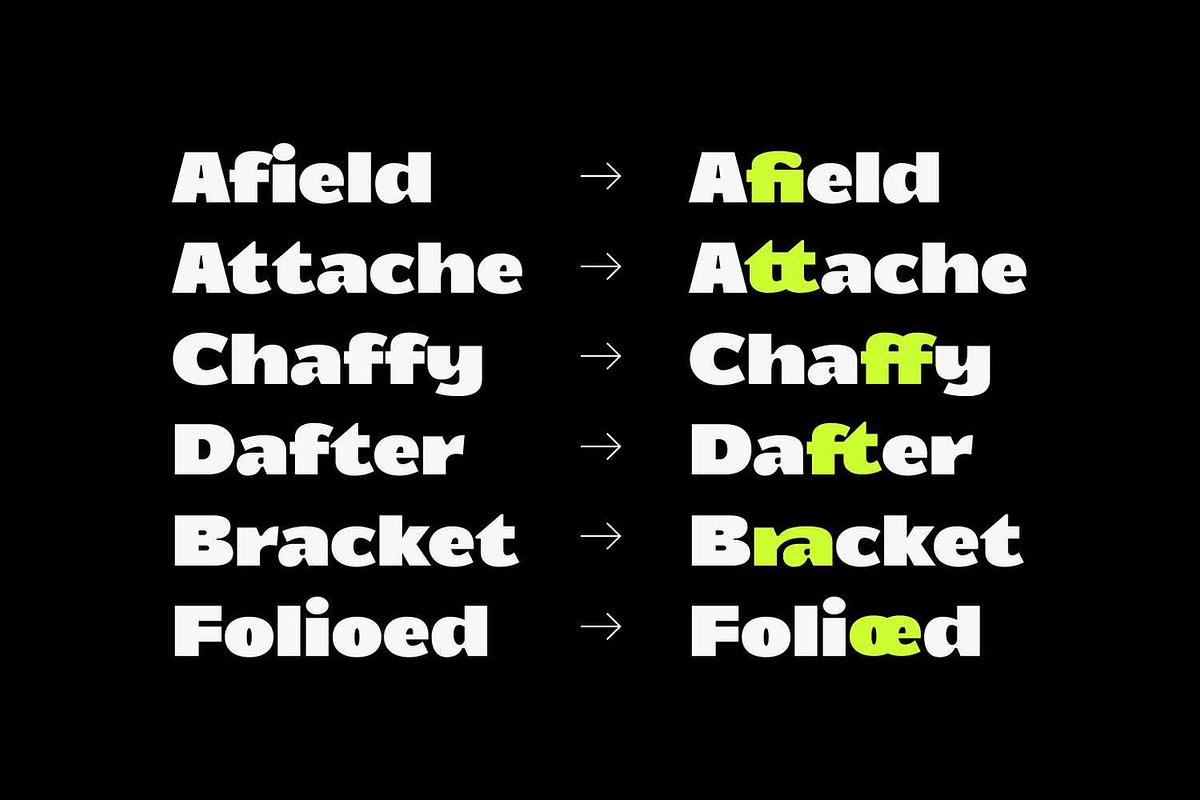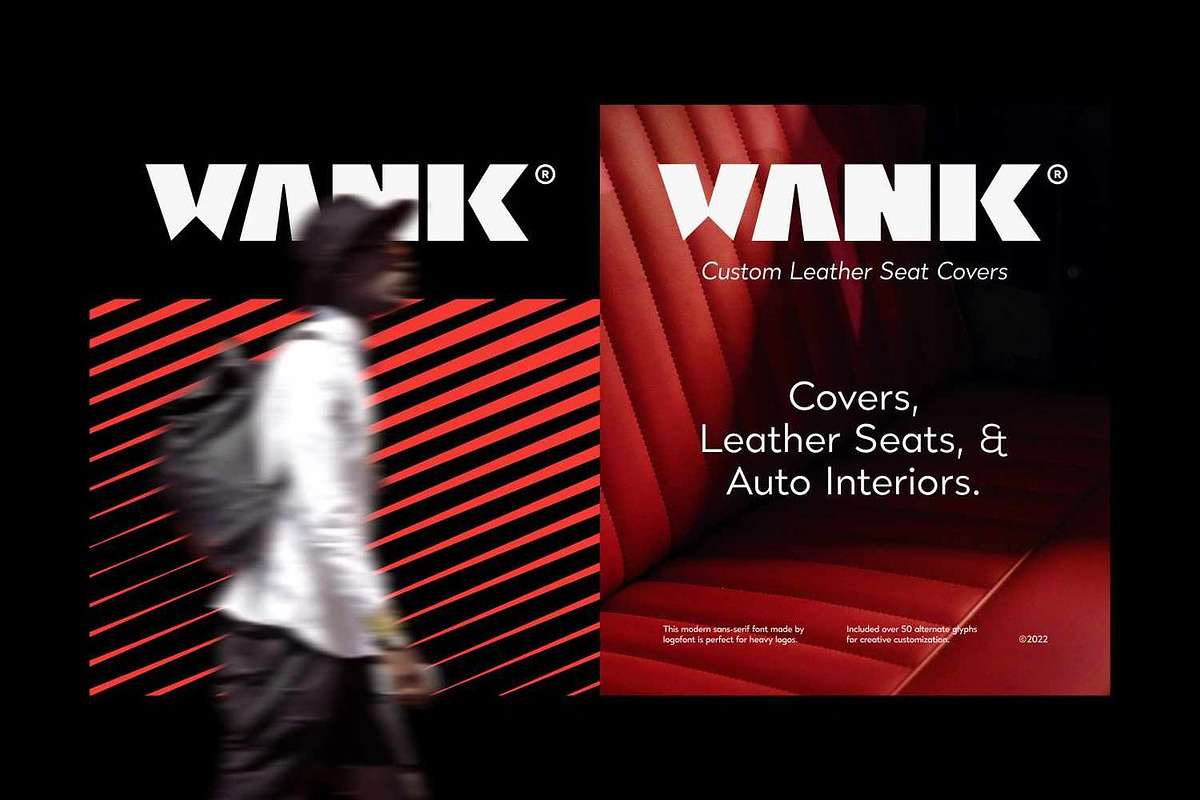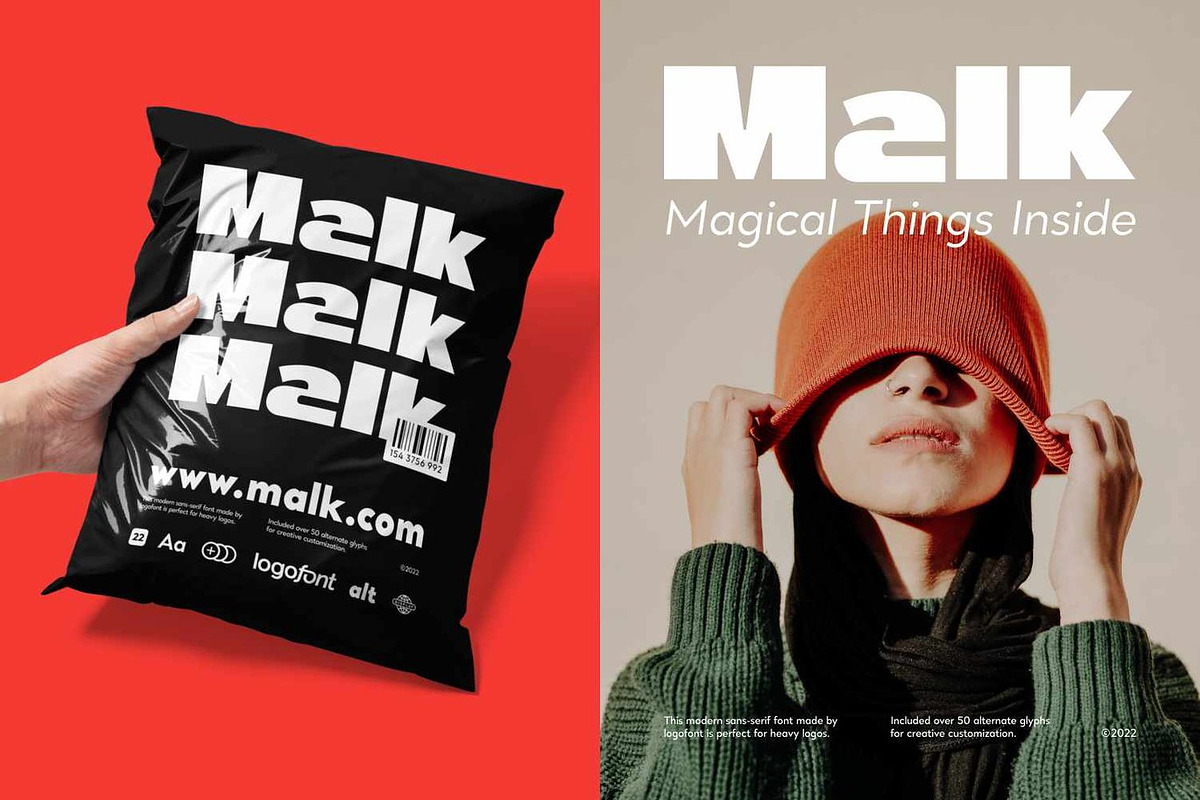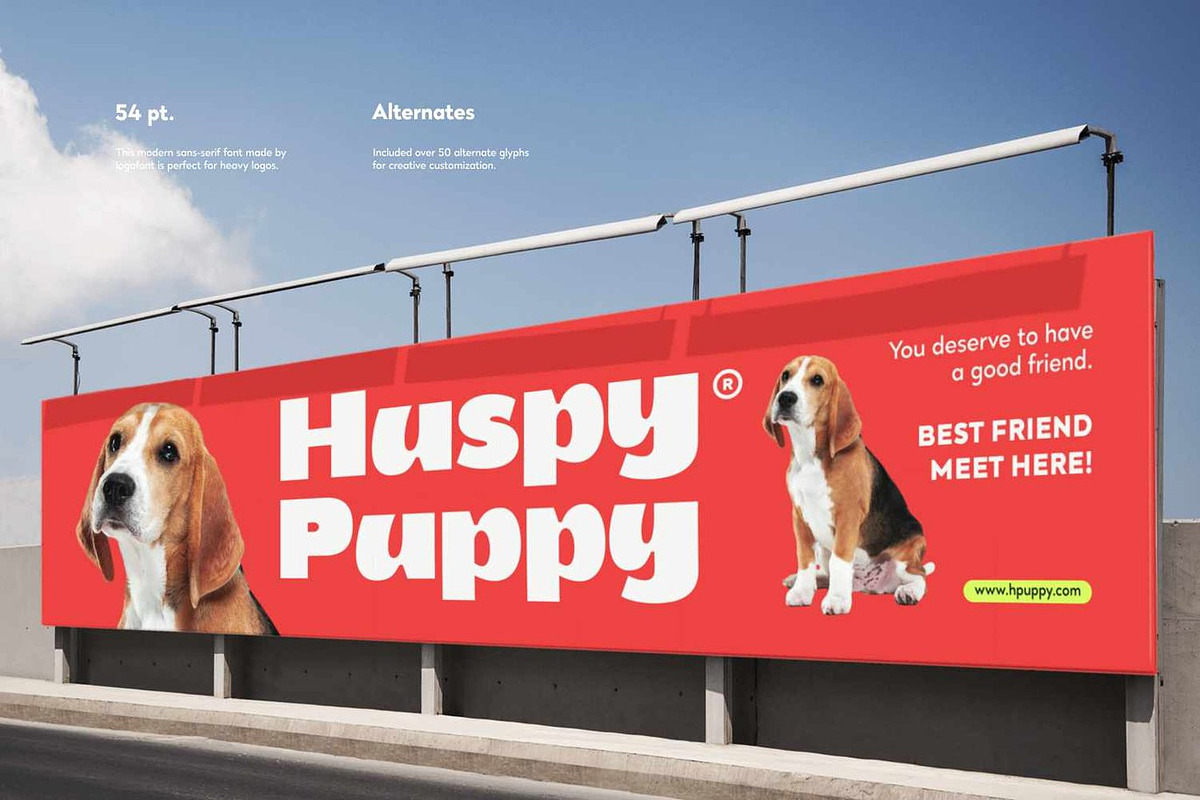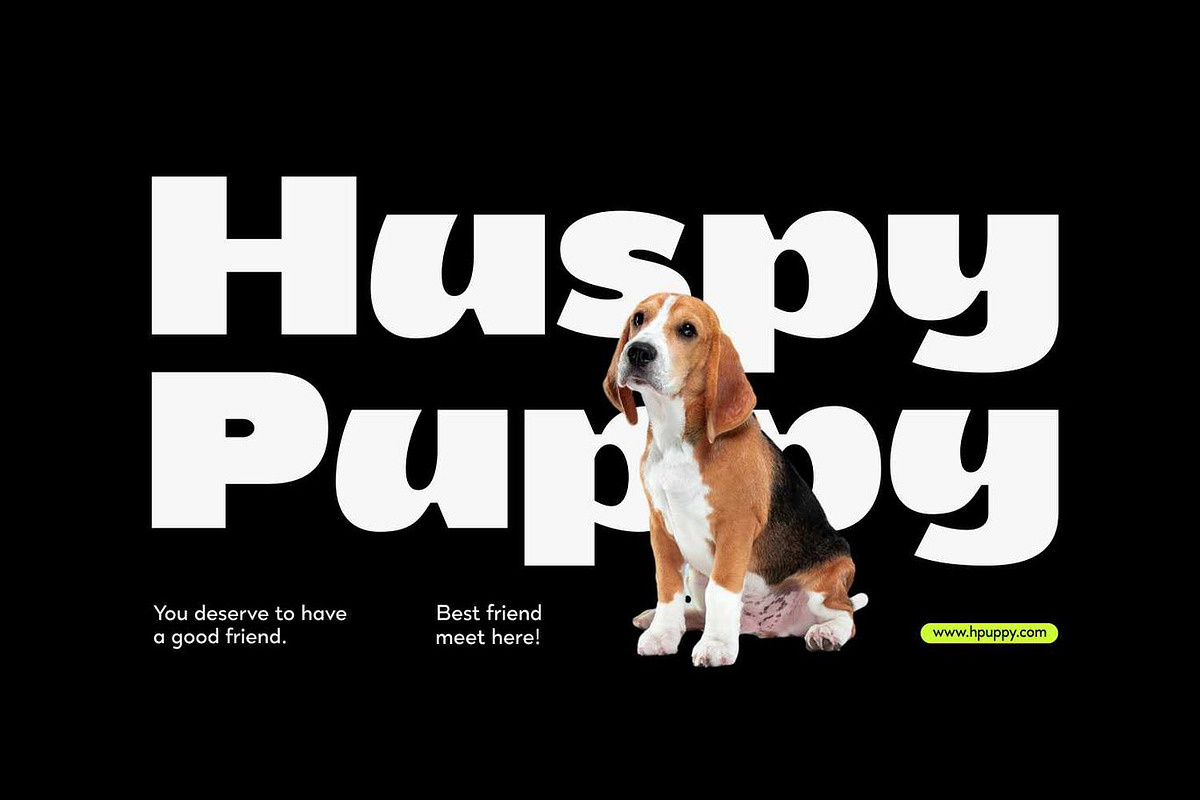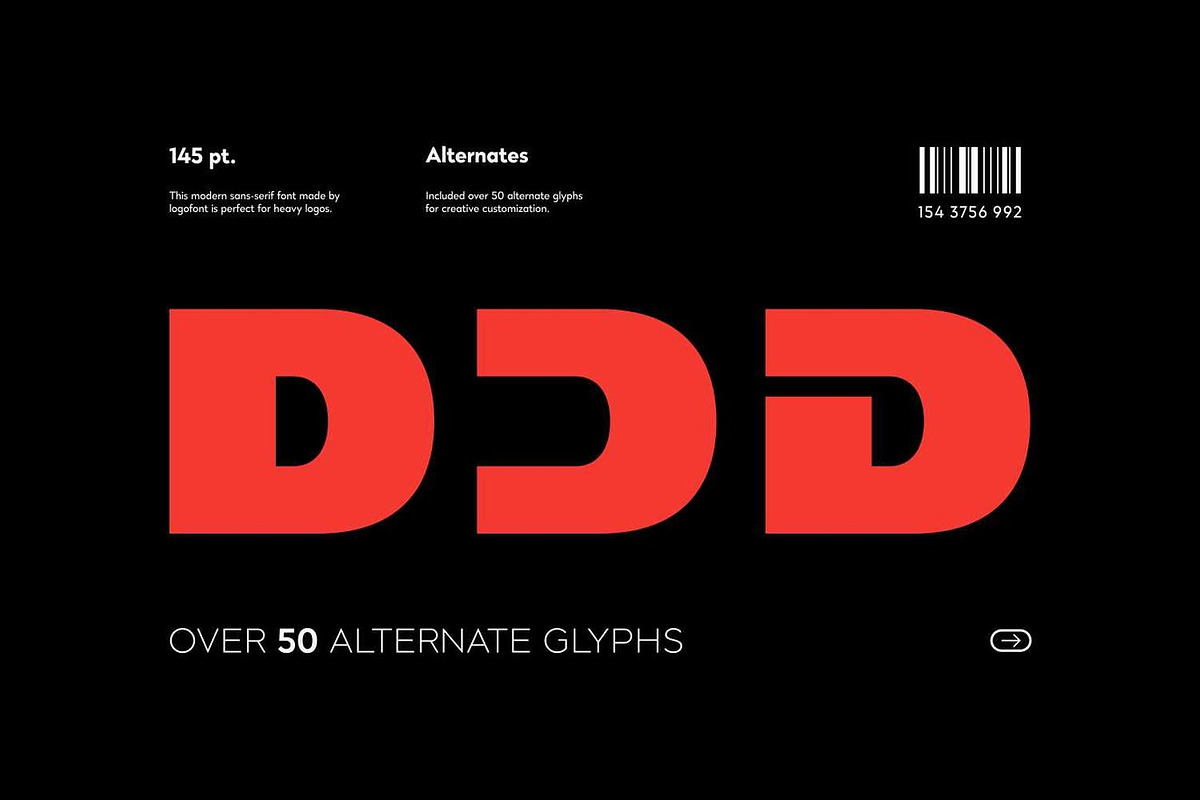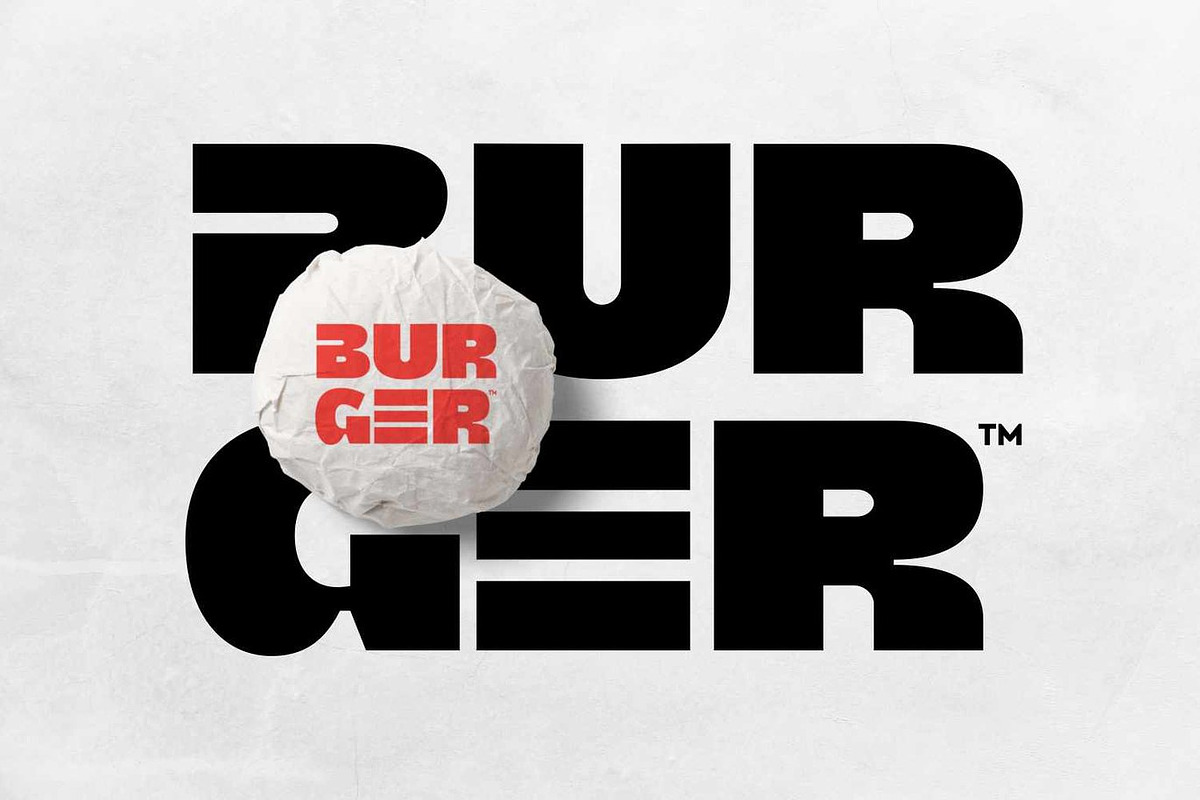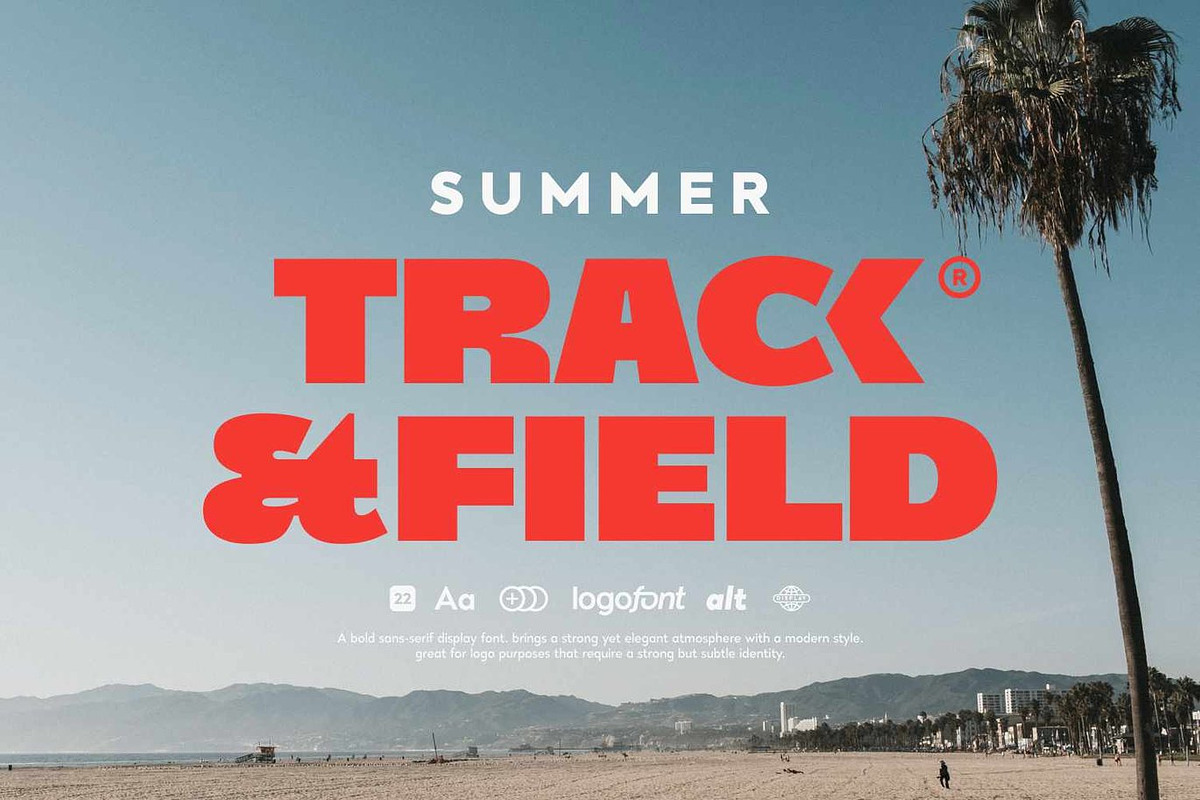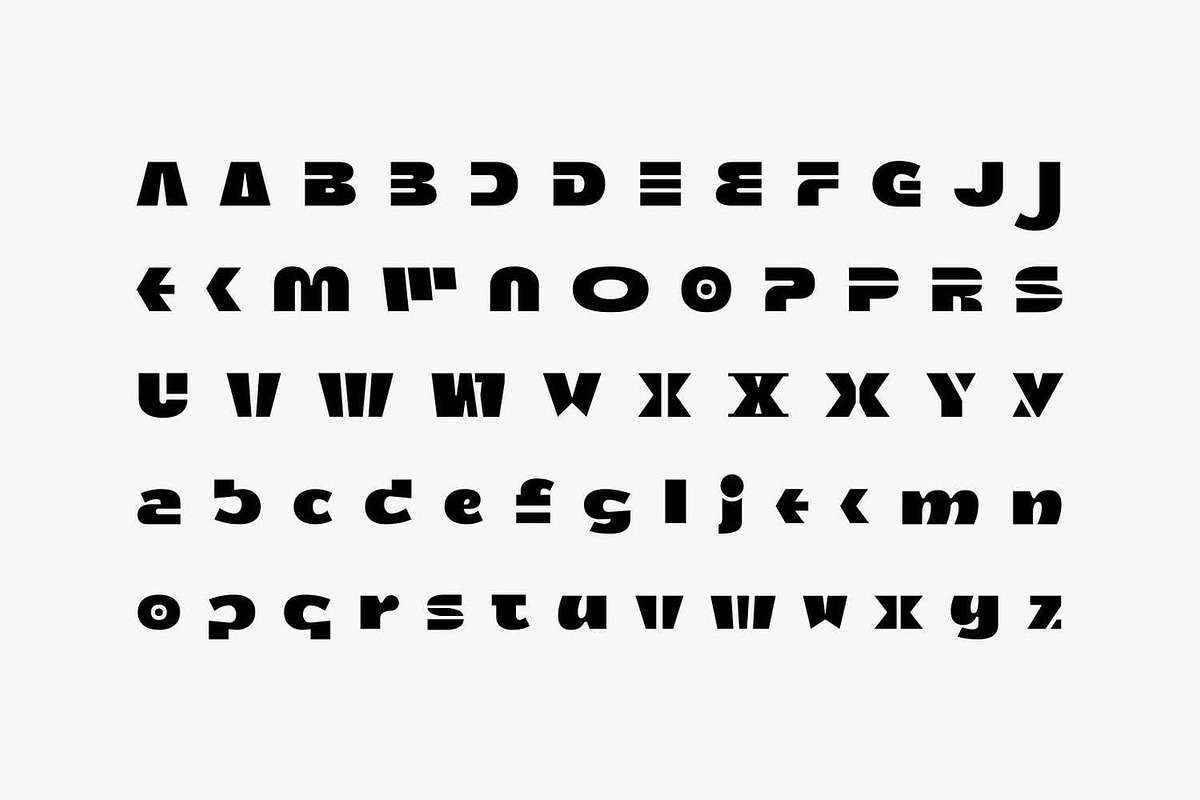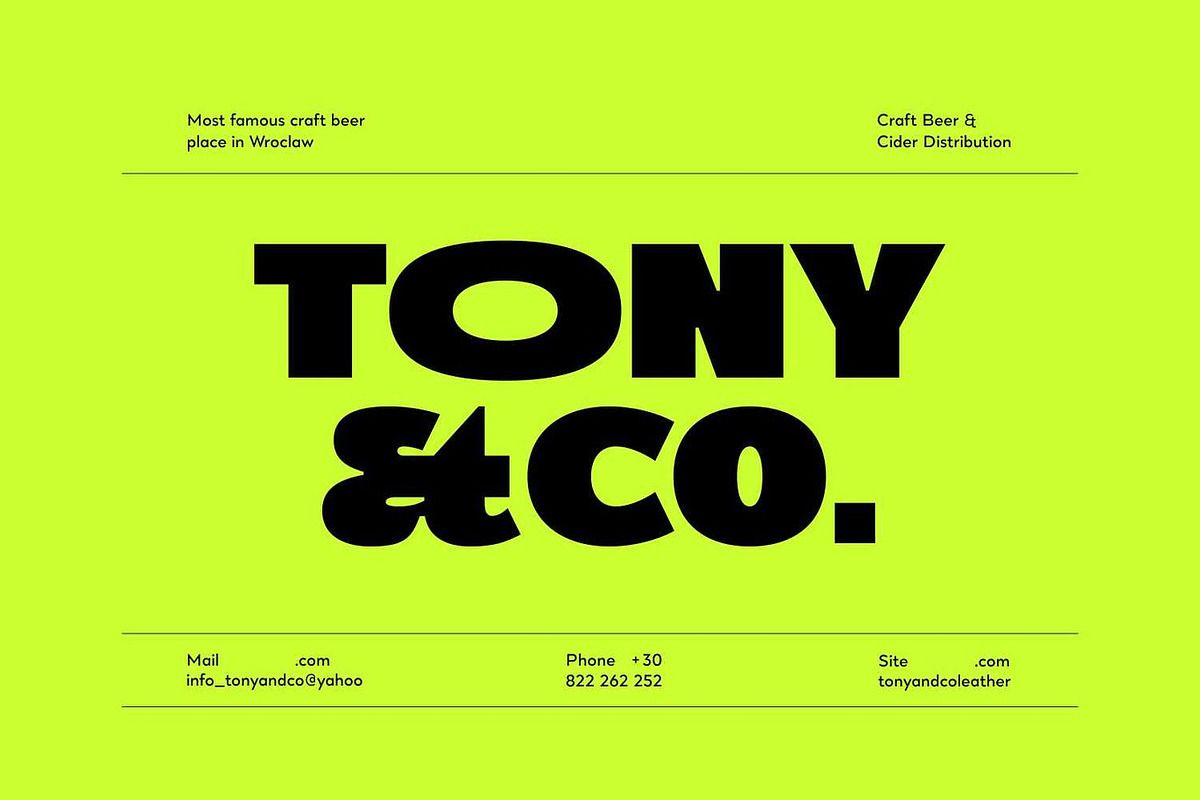
Boldwave - Modern Sans Serif
Boldwave is a versatile sans serif typeface built for modern branding and design across every medium. Clean geometric lines and balanced proportions deliver strong legibility alongside contemporary character, making it equally effective for product logos, poster headlines, editorial layouts, and digital interfaces. With an extensive OpenType feature set including stylistic alternates and ligatures, Boldwave gives designers the freedom to craft distinctive wordmarks and dynamic compositions that stand out while remaining instantly readable.
Where it excels:
Branding and logos: Product identities, company wordmarks, startup branding, and commercial logos where clarity and modern personality need to work together at every scale.
Editorial and publishing: Magazine mastheads, headline hierarchies, section dividers, and web typography where readability across screens and print is essential.
Advertising and marketing: Posters, outdoor campaigns, social media graphics, digital ads, and promotional materials that demand attention without sacrificing professionalism.
Packaging design: Product labels, box designs, food and beverage packaging, and retail displays where bold type needs to communicate quickly and effectively.
Digital products: Website headers, app interfaces, navigation systems, and screen-based applications where legibility and contemporary aesthetics drive user experience.
Standout features:
Full uppercase and lowercase character sets with optical adjustments that ensure clarity at headline and body text sizes across platforms.
Comprehensive symbols and punctuation designed to maintain visual consistency in complex typographic settings.
Numerals engineered for data displays, pricing, navigation, and editorial numbering with clean alignment and rhythm.
Extensive OpenType features including stylistic alternates that let designers explore personality shifts and unique letter combinations for custom branding.
Rich ligature library that refines letter pair interactions and elevates typographic polish in headlines and wordmarks.
Multilingual support bringing Boldwave's clean, modern voice to global audiences and international brand touchpoints.
Choose Boldwave when projects need a contemporary sans serif that balances geometric precision with warmth, delivering strong headlines, crisp logos, engaging web typography, and packaging designs with modern clarity and professional confidence.